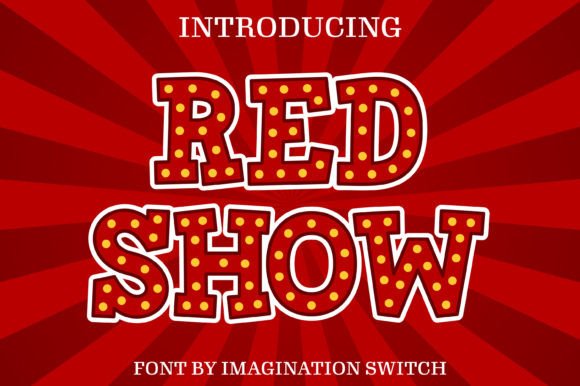
Welcome to the world of Red Show Font, a typographic masterpiece where colors dance in harmonious delight. This captivating font, with its complete character set, beckons you to embrace uniqueness and creativity. Each meticulously designed character is endowed with carefully chosen colors, transforming your words into mesmerizing visual expressions.
Unleash the power of color typography and witness the transformation of ordinary designs into extraordinary masterpieces. Whether you're a design aficionado or a creative professional seeking to make a statement, Red Show Font is your perfect companion.
With its versatility, Red Show Font effortlessly adapts to a myriad of projects. It's the perfect choice for print designs, web layouts, promotional materials, and any other project that demands a touch of color and creativity. Its excellent legibility ensures that your message is communicated with clarity and impact.
Imagine the possibilities: vibrant greeting cards that burst with color, captivating social media posts that demand attention, or eye-catching logos that leave a lasting impression. With Red Show Font, you'll turn your creative visions into reality, leaving your audience spellbound.
Embark on a journey of creative expression with Red Show Font. Let your designs speak for themselves, captivating and captivating your audience with every stroke of color.